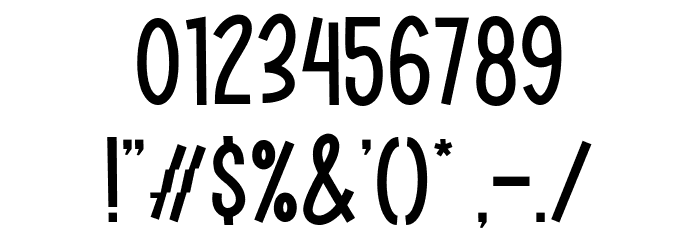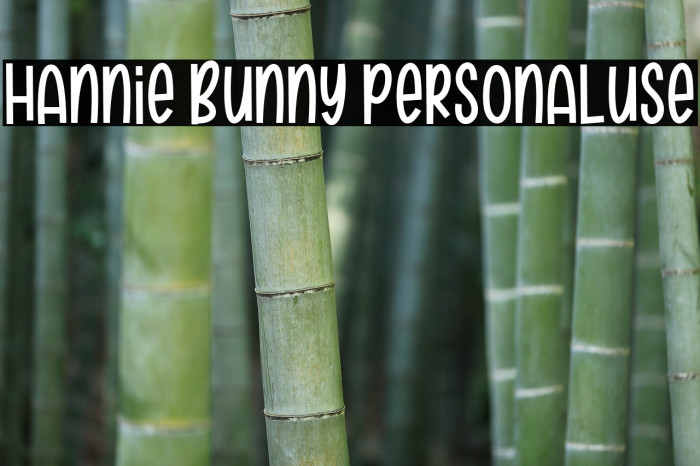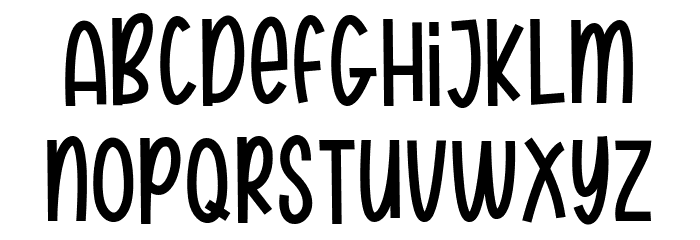
Hannie Bunny personaluse Font
Hannie Bunny personaluse Description
This playful and whimsical font features rounded, slightly irregular letterforms that convey a sense of fun and creativity. The characters have a hand-drawn appearance, with a consistent stroke width that gives them a bold and friendly look. The uppercase and lowercase letters maintain a uniform style, while the numerals and special characters complement the overall design. The font's unique style makes it suitable for projects that require a touch of personality and charm, such as children's books, playful branding, or creative invitations. Its legibility and distinctiveness make it a versatile choice for various design needs.
A playful, hand-drawn font with rounded, bold letterforms from Cartoon fonts.
- Proposed Projects: Ideal for children's books, playful branding, creative invitations, and fun posters.
- Overall Style: Playful